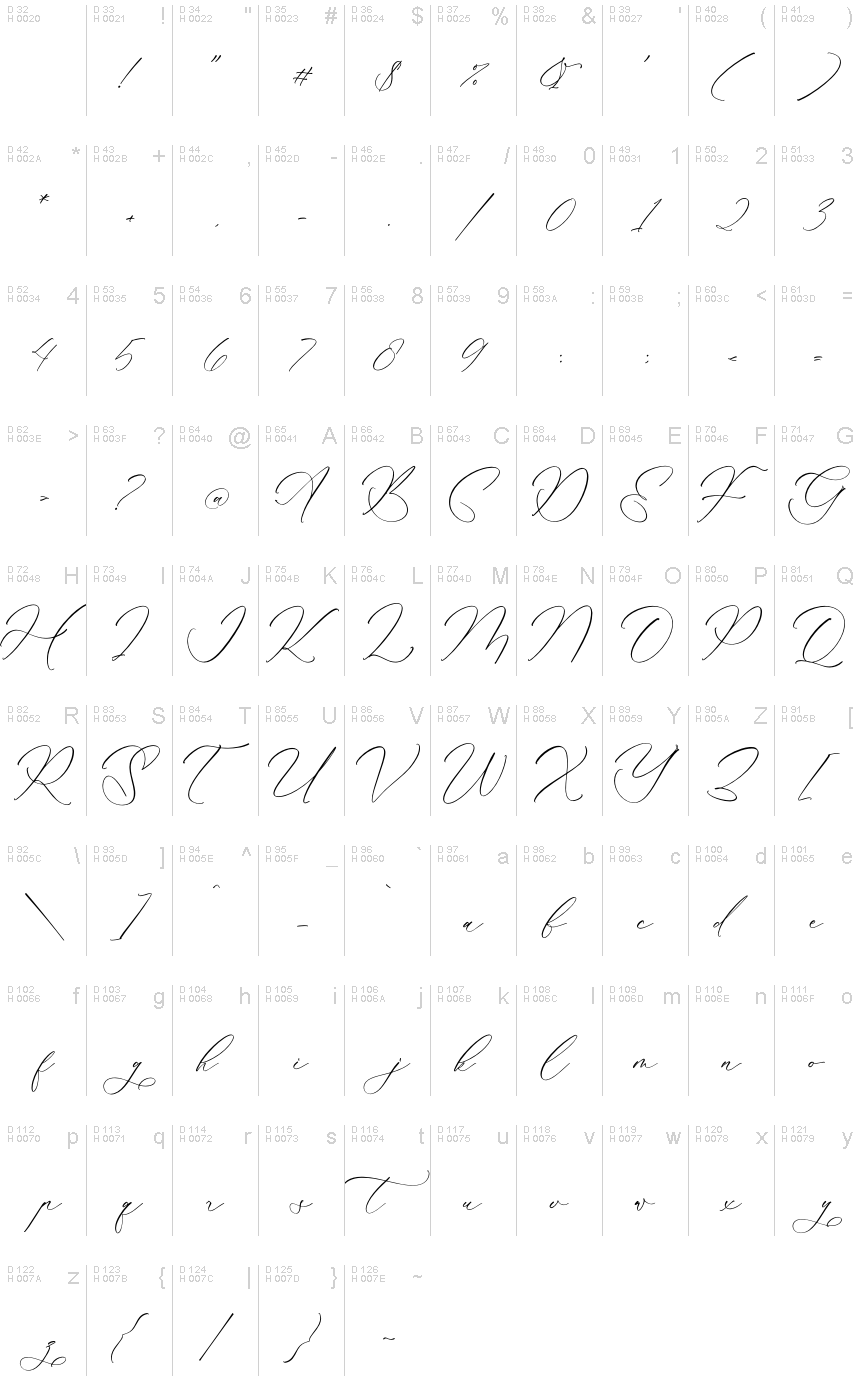
Kalneitta Aldonite
Kalneitta Aldonite font by Storytype Studio is a captivating handwritten typeface that exudes elegance with its light, graceful lines. The delicate strokes and fluid curves create a sense of sophistication perfect for adding a personal touch to your designs. Whether used for wedding invitations, branding projects, or artistic compositions, this free font infuses creativity and charm into every letter.
With its effortless beauty, Kalneitta Aldonite is ideal for projects requiring a touch of refinement and warmth. Designers seeking to download a distinctive typeface that combines style with versatility will find this font particularly appealing. Its sophisticated aesthetic ensures it stands out in both digital and print media, making it an excellent choice for conveying an elegant message in any context. Enhance your designs today with the exquisite Kalneitta Aldonite free font download.